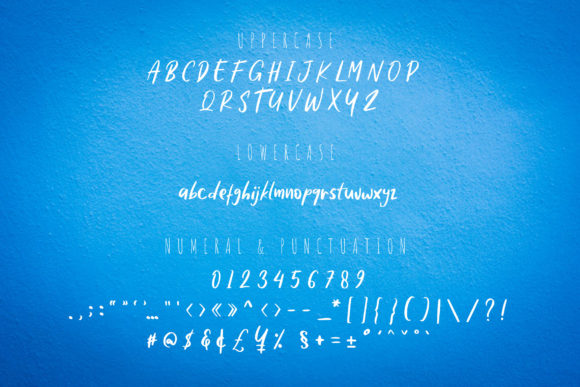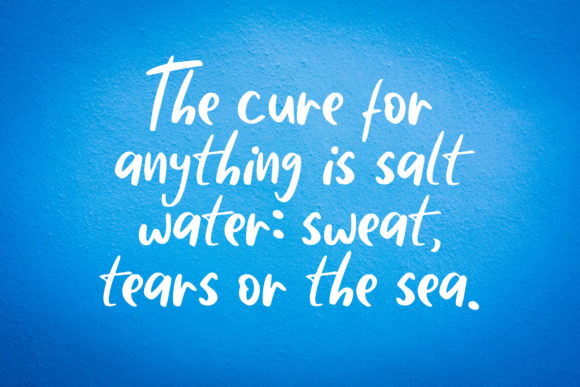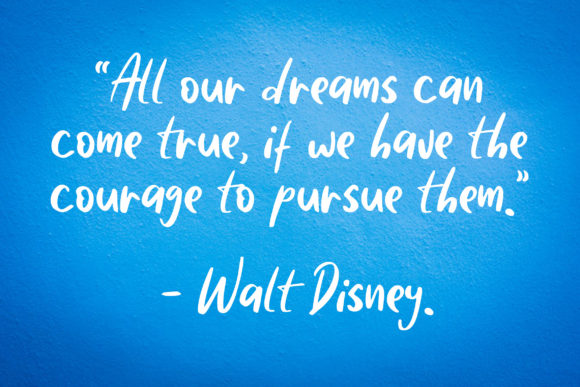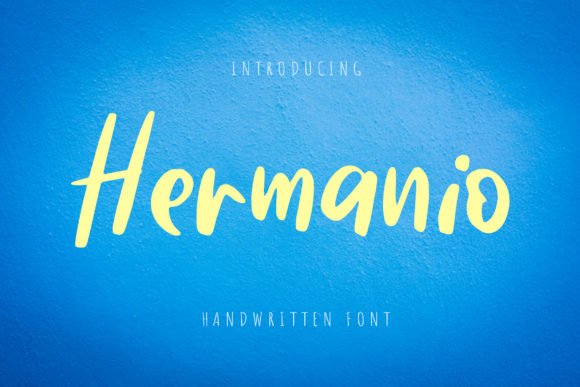
Introduction to Hermanio Font
Hermanio is a cool, friendly, and whimsical handwritten font.
Add it to each of your party invitations, gathering, or pretty much any design that requires a touch of youth and joy .